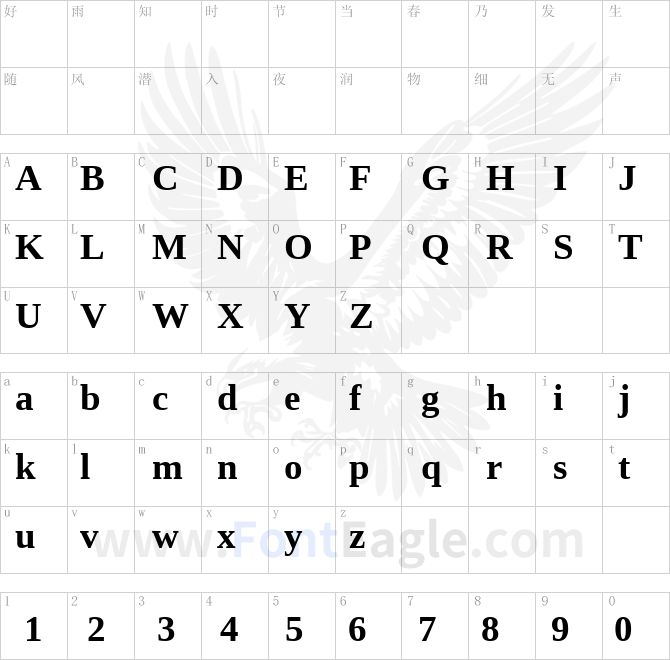
- Font name:Liberation Serif
- Font Subfamily ID:Ascender – Liberation Serif Bold
- Font Full Name:Liberation Serif Bold
- Postscript:LiberationSerif-Bold